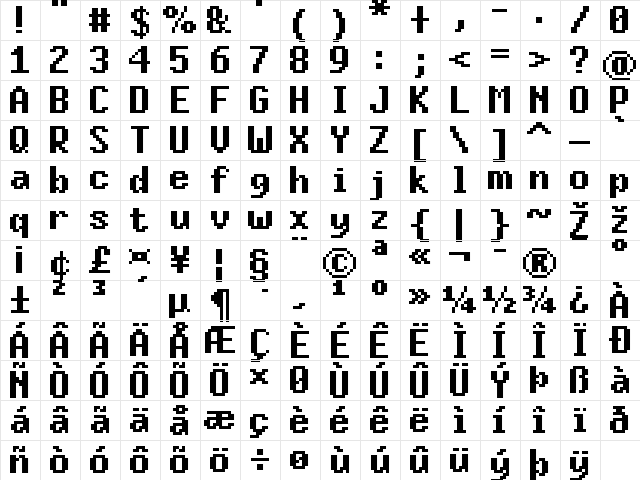
FFF Daylight Bold Extended Regular
| Foundry | Fonts For Flash |
| Designer | Fonts For Flash |
FFF Daylight Bold Extended offers clean, dependable letterforms without strong stylistic allegiance, making it a practical choice for designers who need flexibility. The heavy weight commands attention and anchors typographic hierarchies.